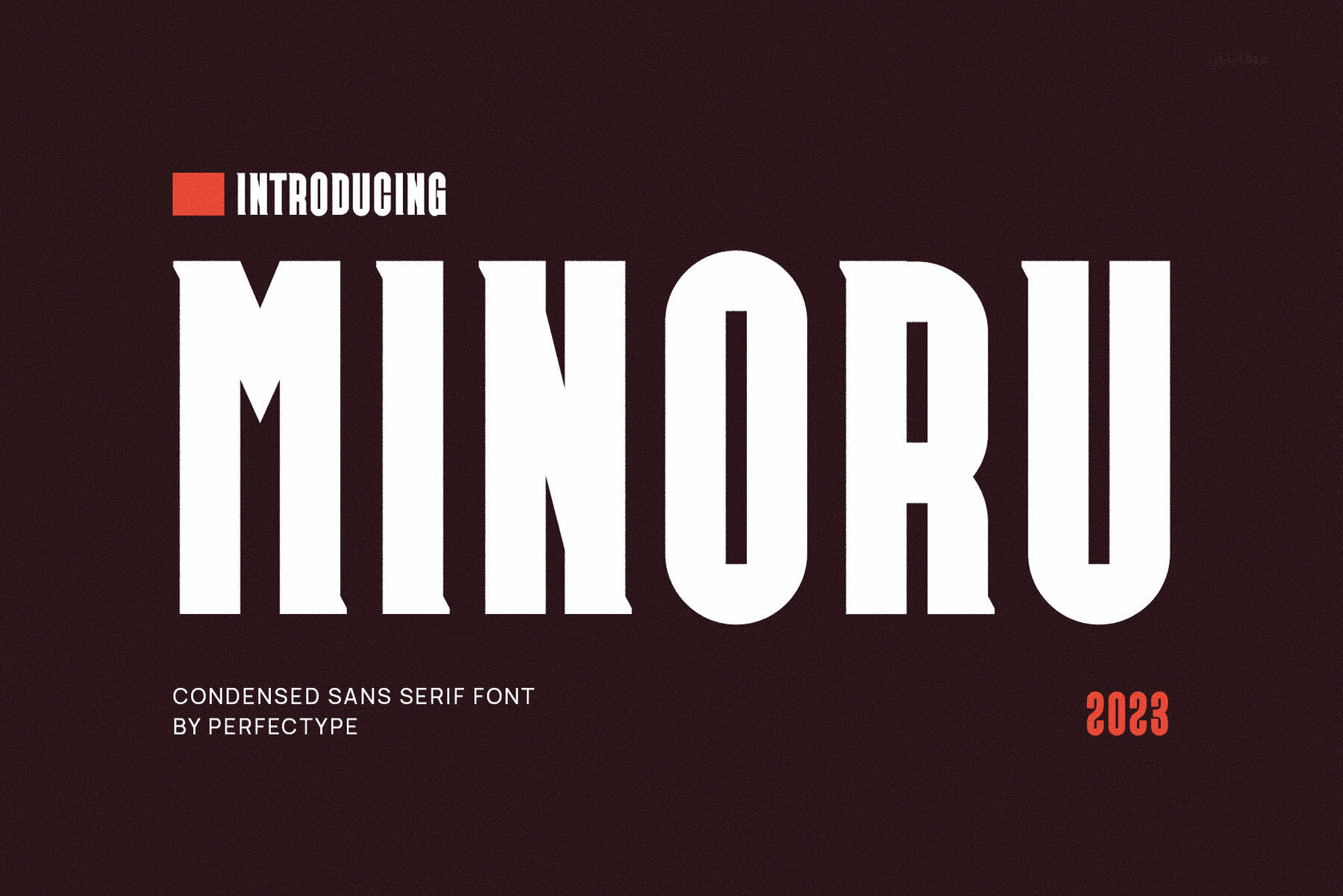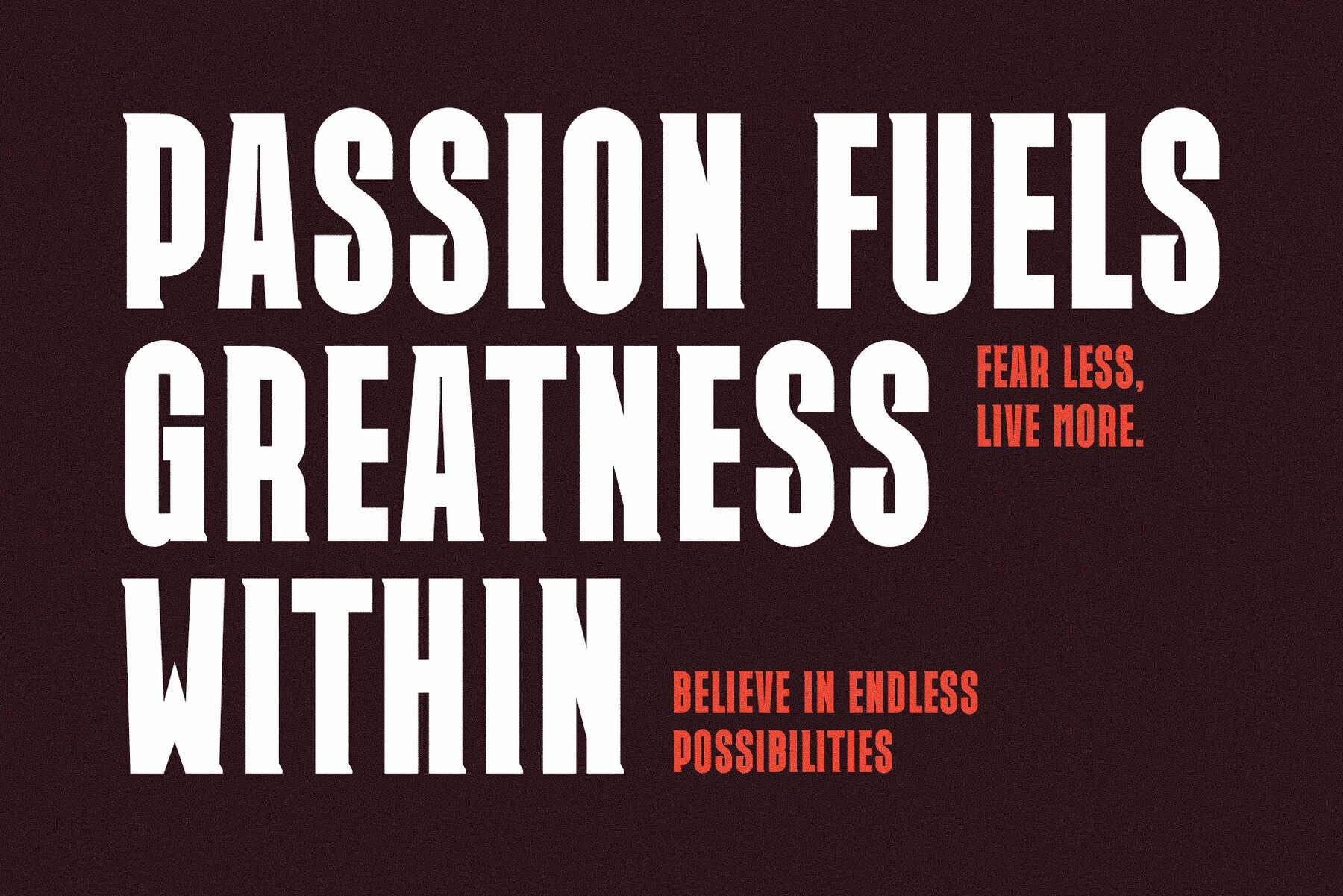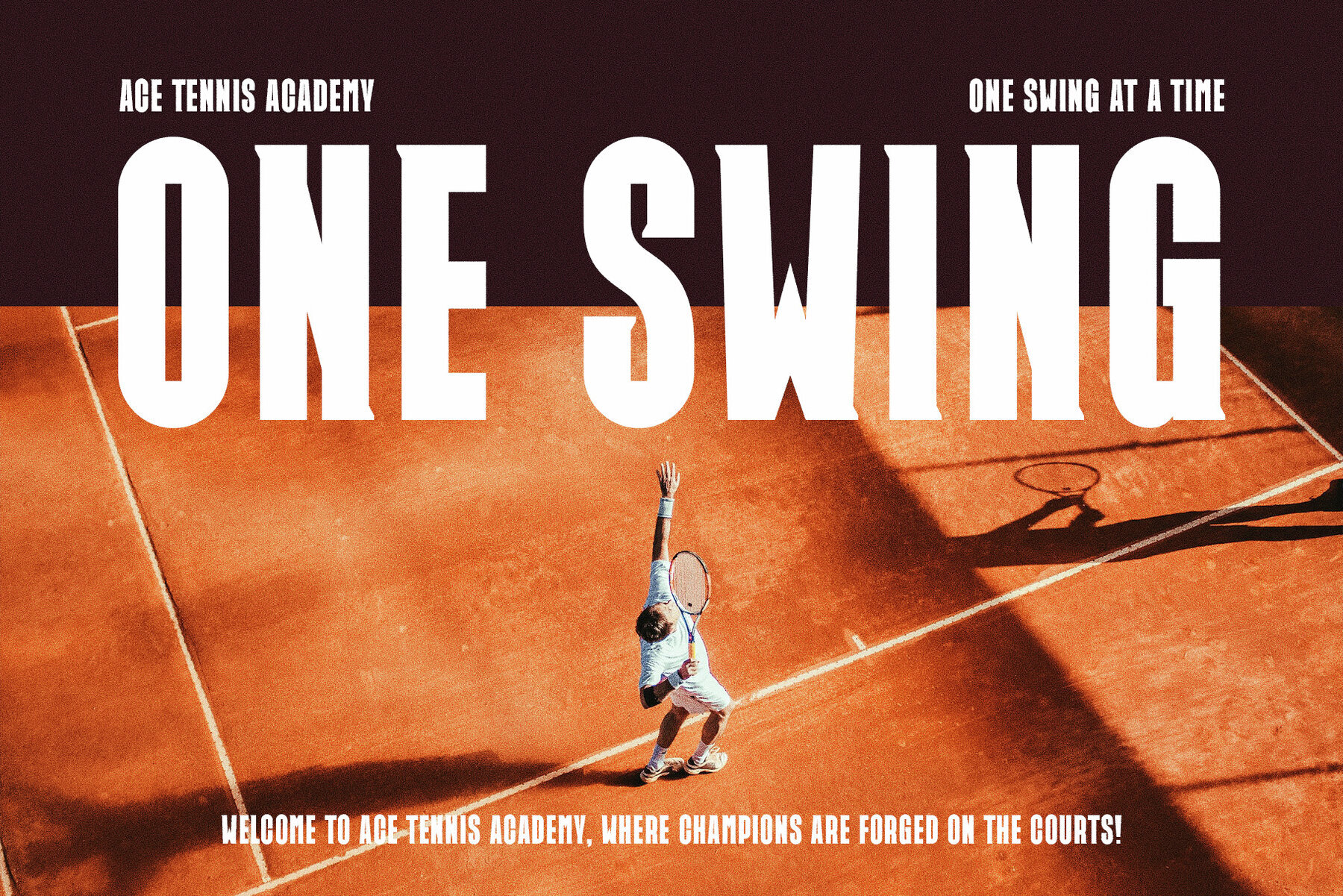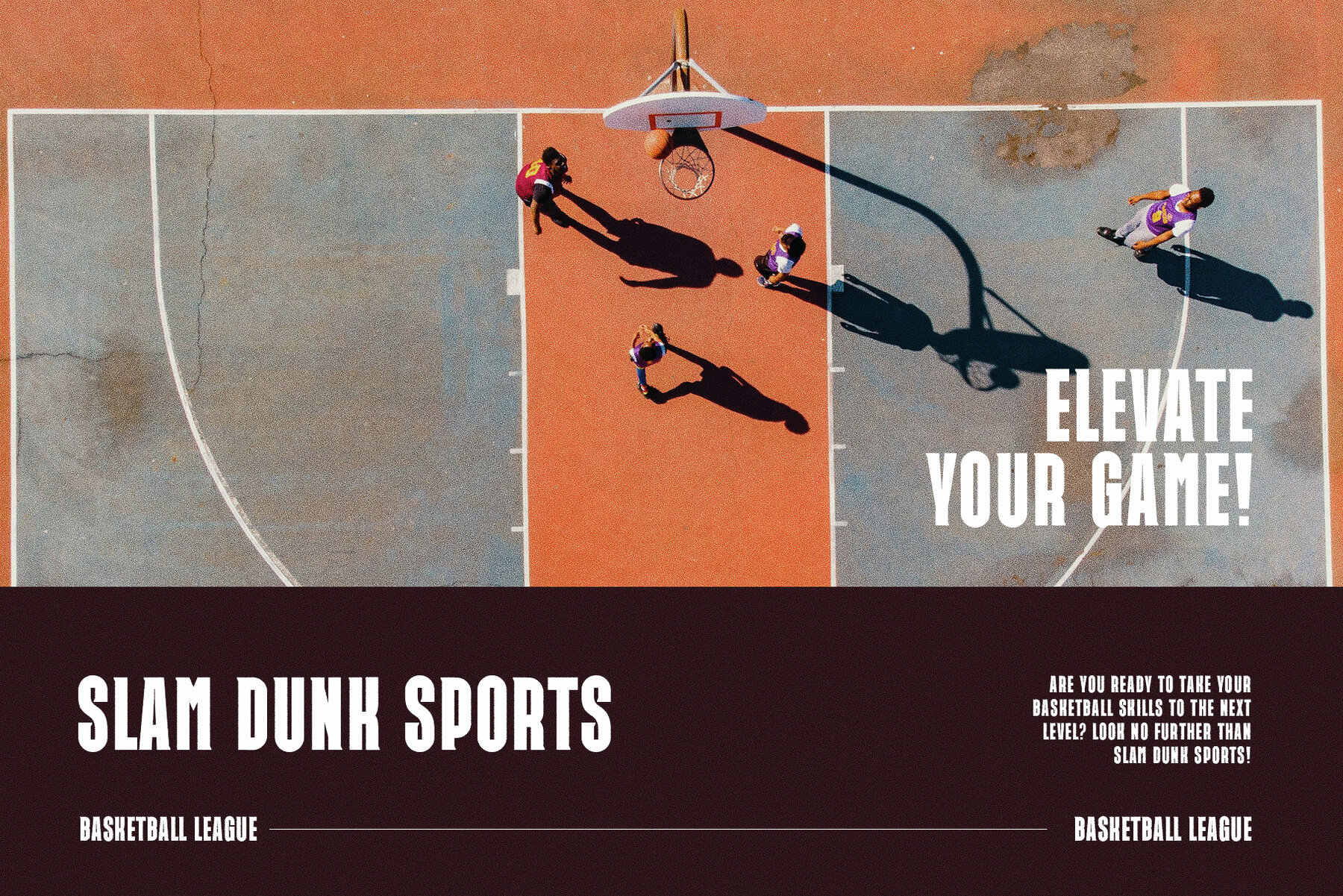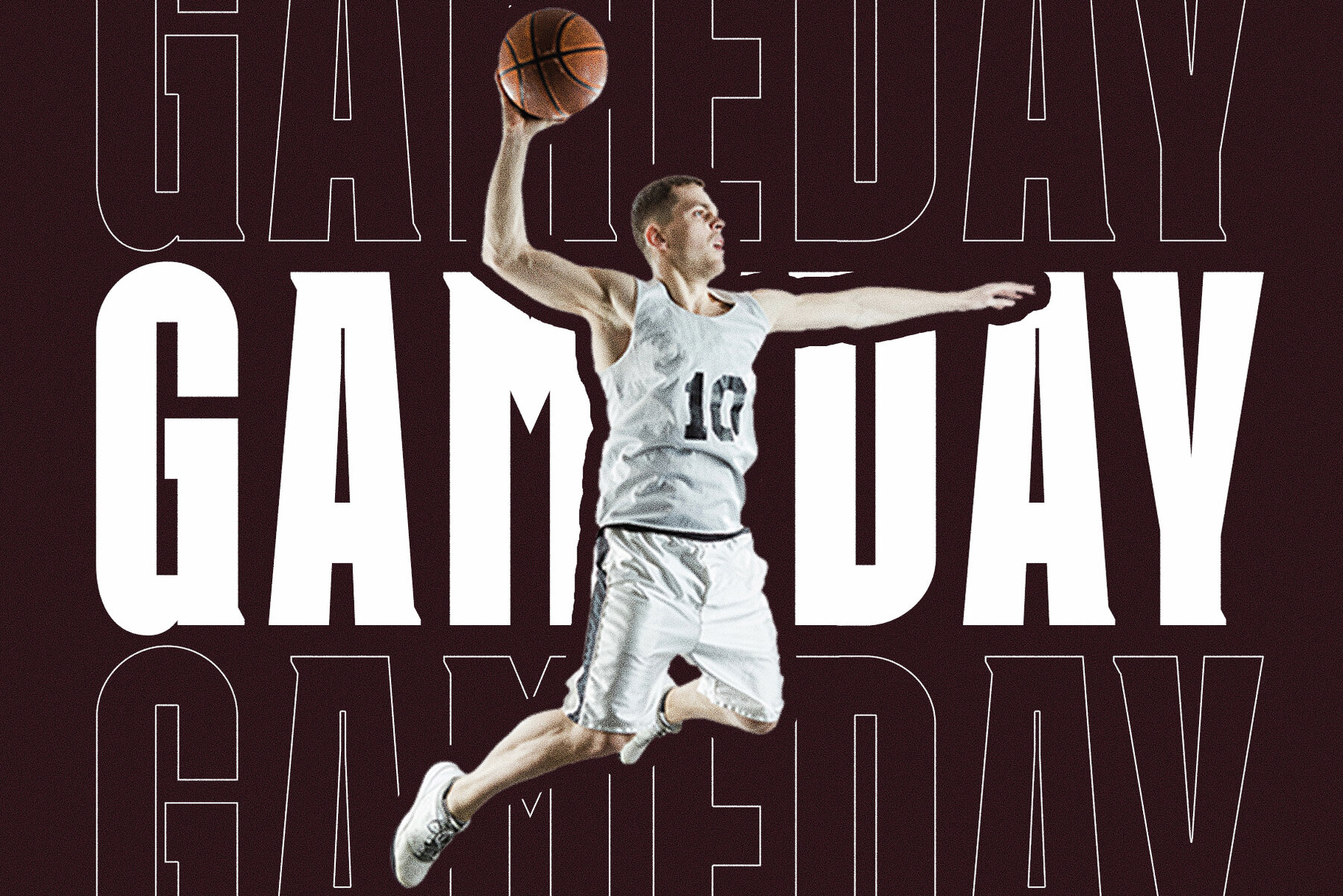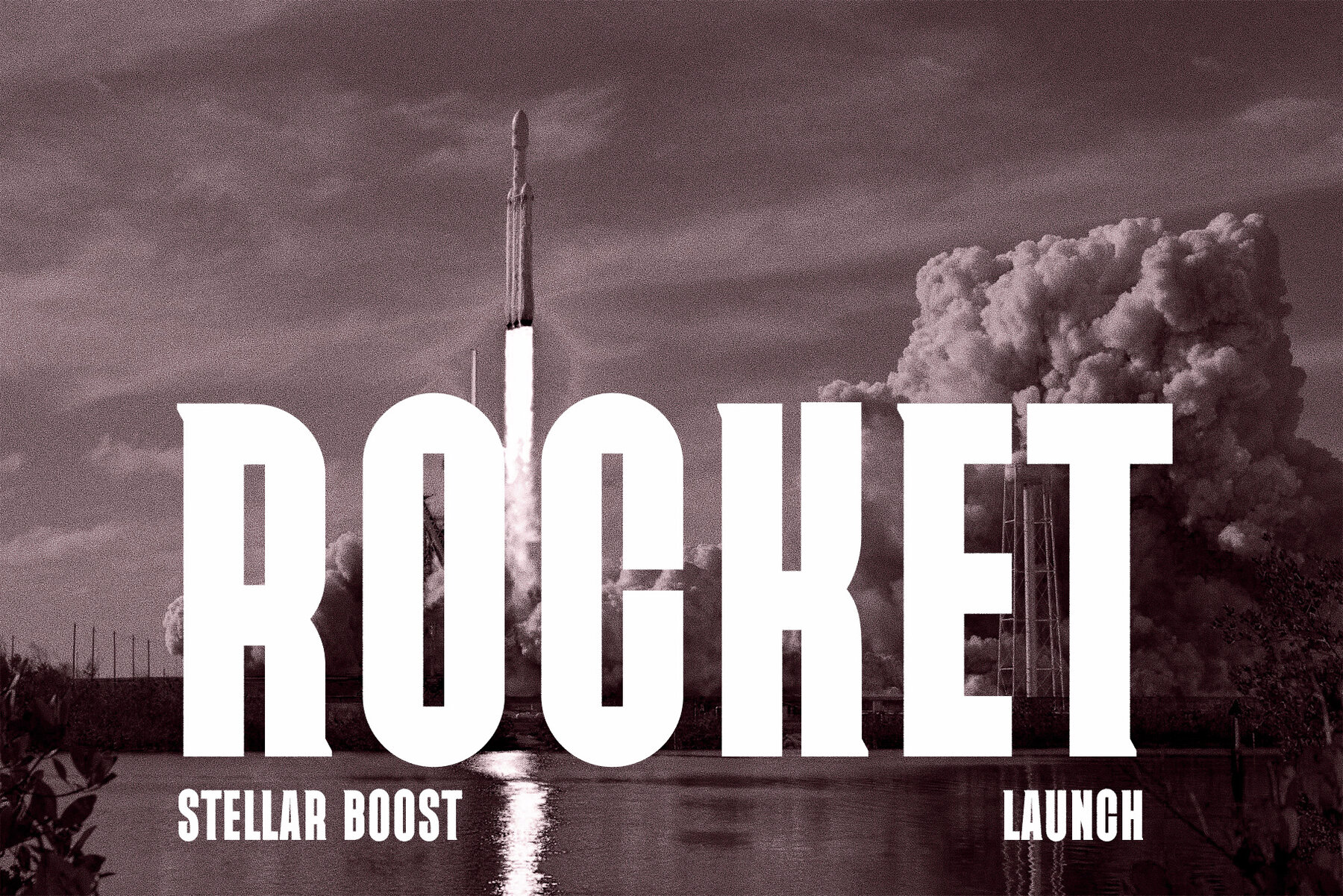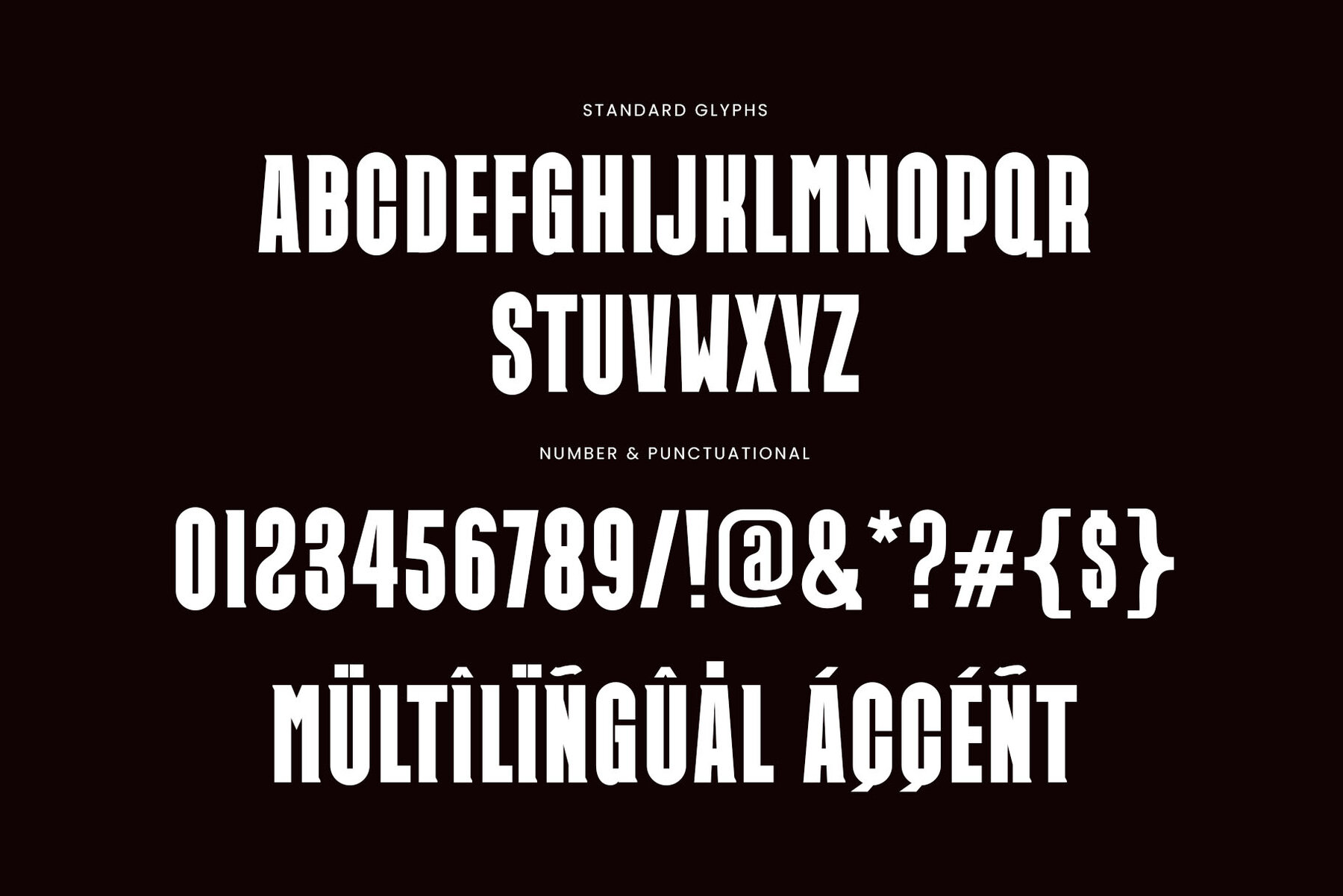
Minoru Font
Minoru Regular
Minoru is a sans serif font crafted by Perfectype Studio, emphasizing balance and high readability. Designed with meticulous attention to detail, this font is an excellent choice for a wide range of branding needs, providing neatness and a detailed philosophy. Ideal for use in brochures, videos, advertising, logos, magazines, layouts, posters, social media templates, games, and more, it offers versatility across various design applications. Using Adobe Illustrator or Adobe Photoshop is recommended to fully leverage the capabilities of the Minoru font. Perfectype Studio ensures a flawless design experience for your projects.Minoru: A Highly Readable Sans Serif Font